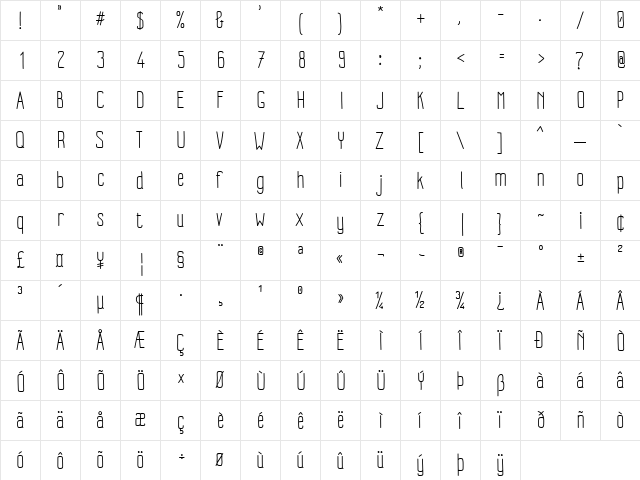
Impreciso free Light Regular
Design Context for Impreciso free Light Typeface
Impreciso free Light takes a measured approach to typography — its balanced proportions and neutral character make it a reliable workhorse for both digital and print work. Its slender proportions lend an understated elegance to any composition.